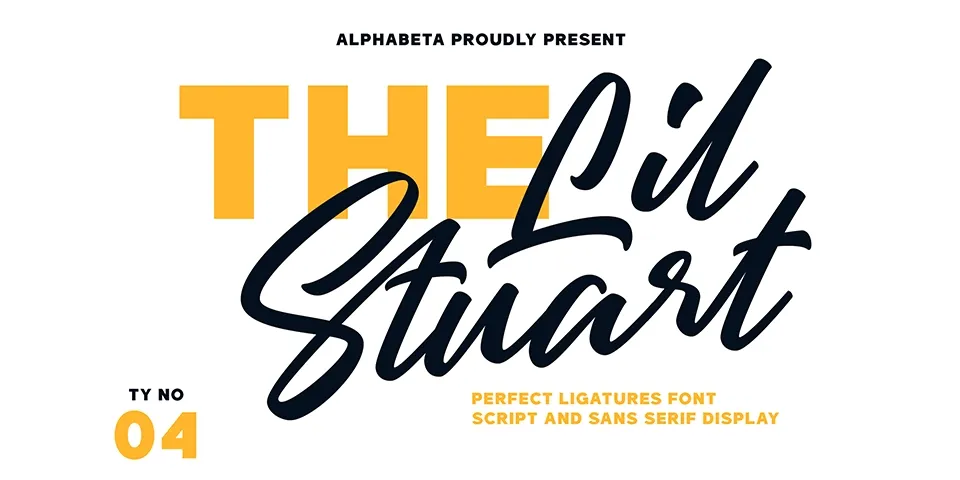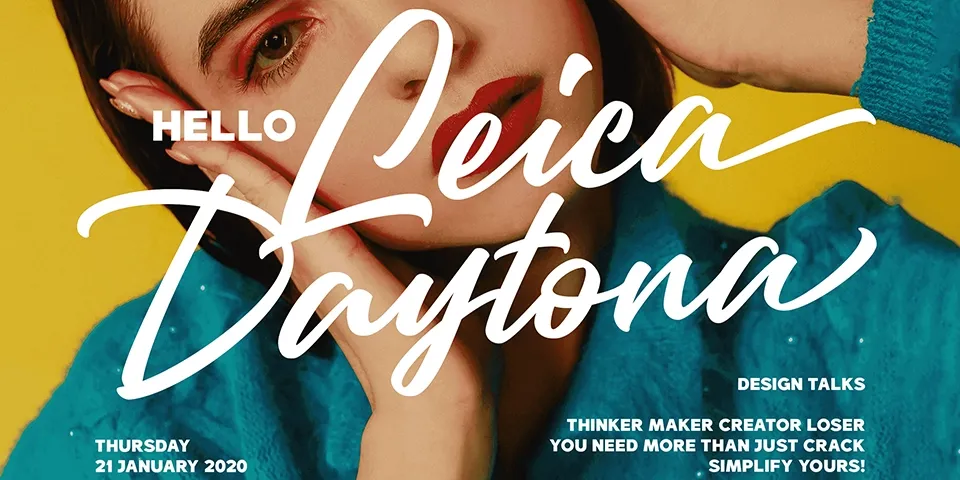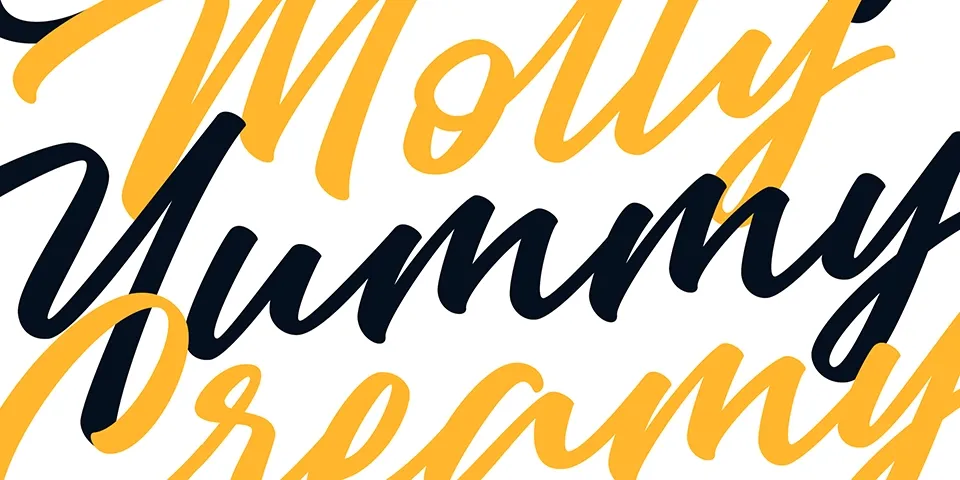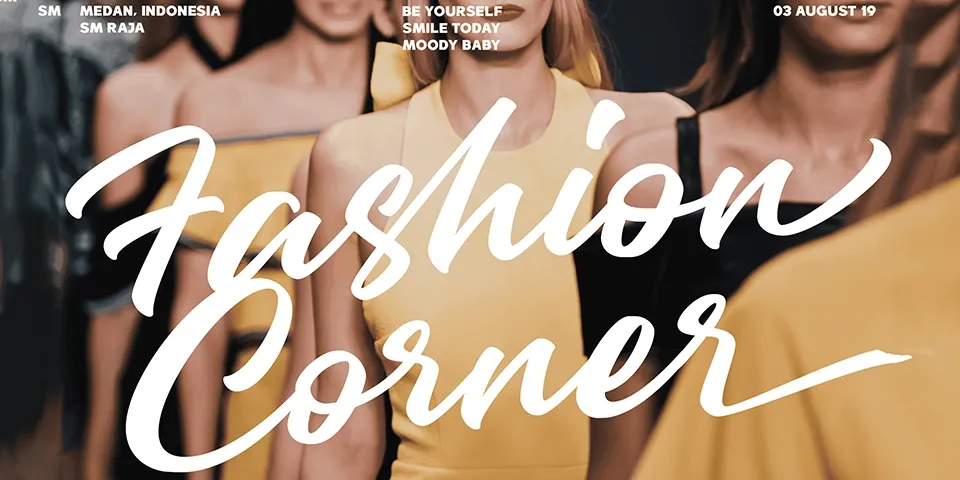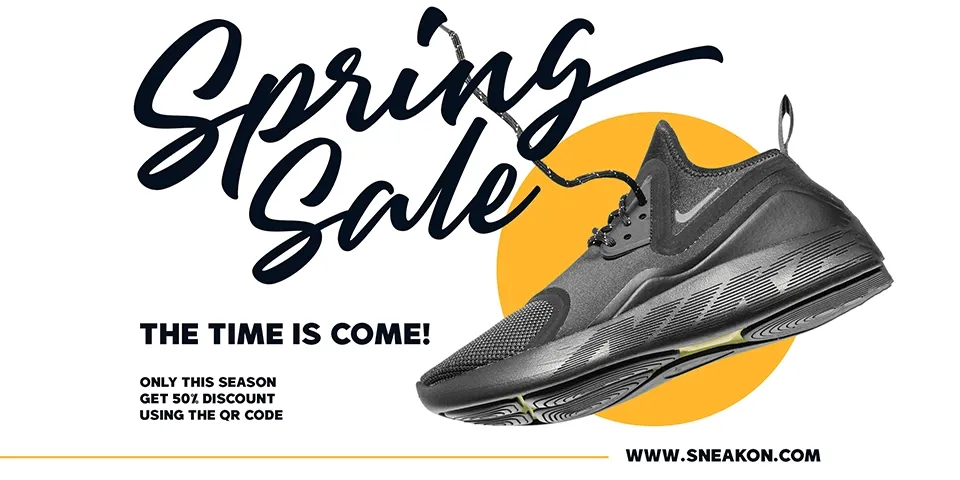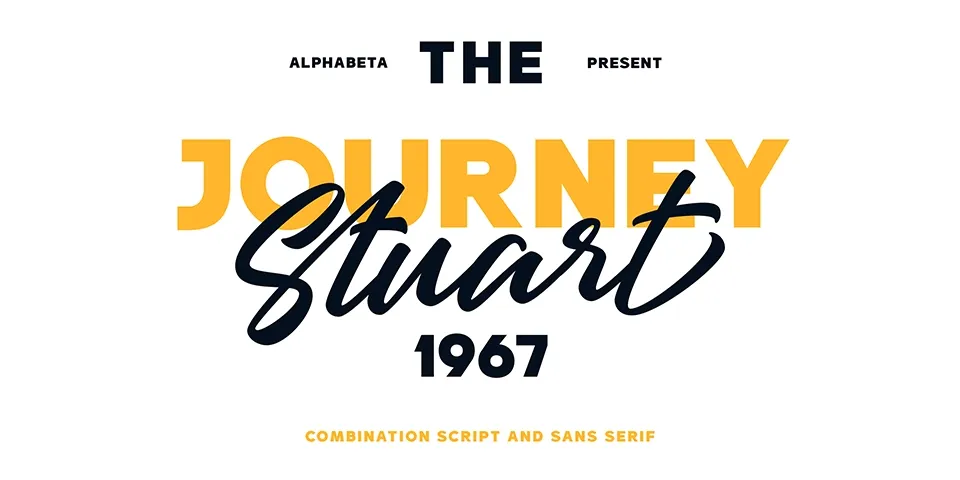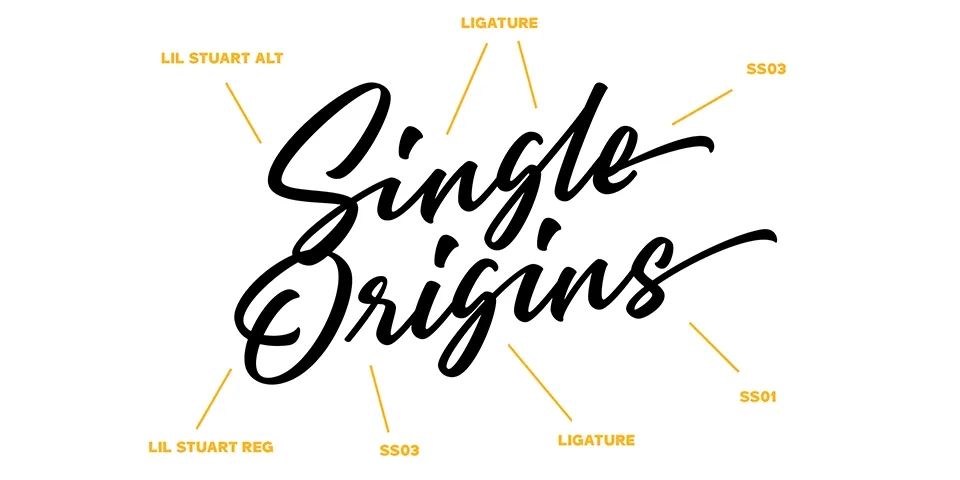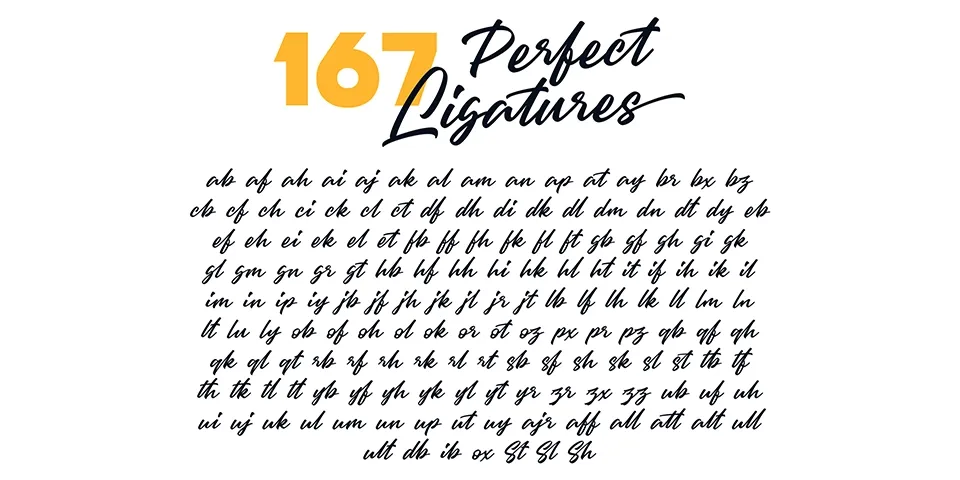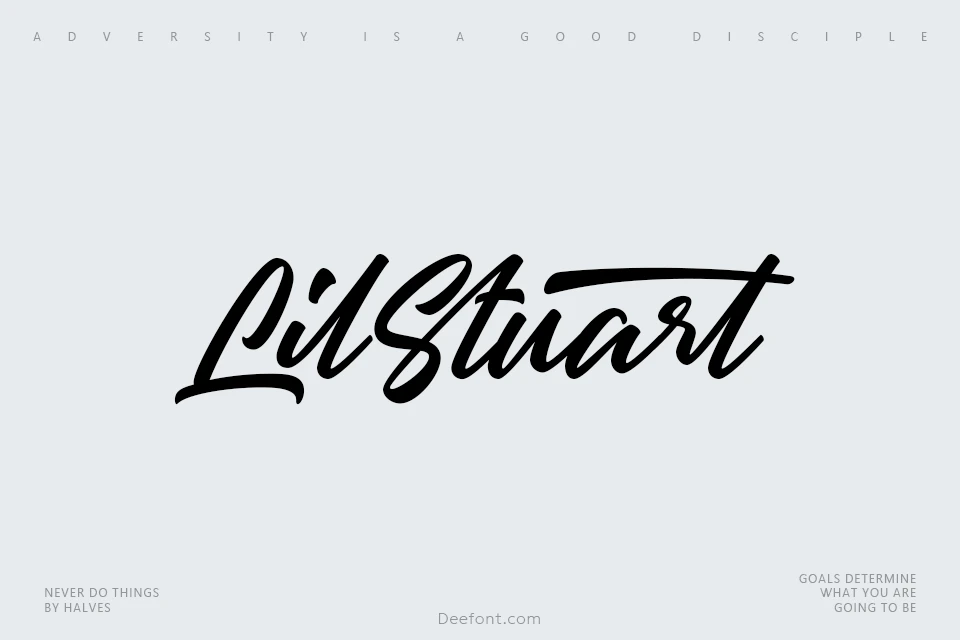
Lil Stuart Font
Discover Lil Stuart Font, an elegant calligraphy typeface designed by Måns Grebäck that perfectly balances sophistication with playful charm. With graceful letters that dance along the baseline, this beautiful script font exudes romantic flair and optimistic energy. Its expressive strokes and distinctive movements create a unique personality that elevates any design project. Perfect for wedding invitations, feminine branding, luxury packaging, and artistic quotations, Lil Stuart adds a touch of handcrafted elegance to your creations. The font features rich ligatures and stylistic alternatives that enhance its authentic handwritten appearance. Let Lil Stuart transform your designs with its captivating blend of classic calligraphy and modern expressiveness.